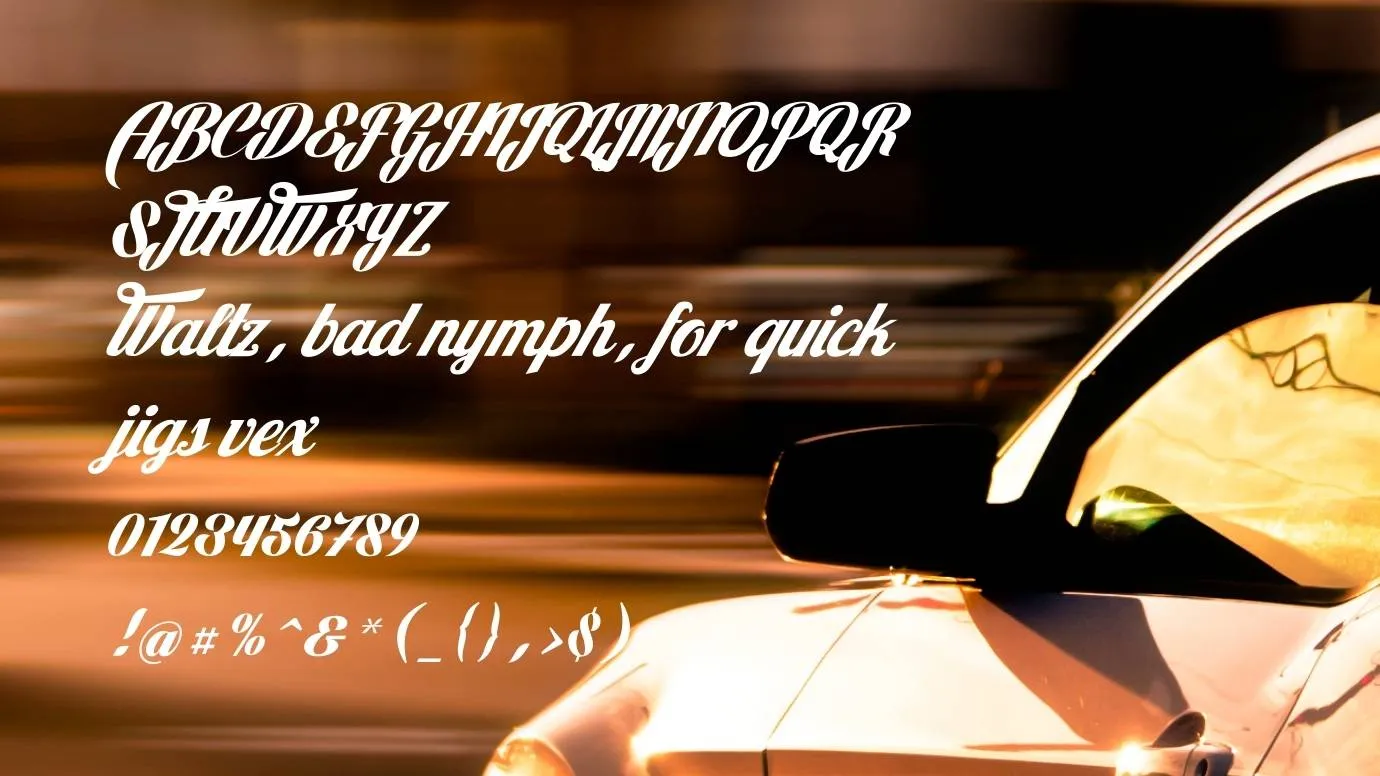
Mustang Font is a bold and rugged brush script typeface. This typeface has a strong appearance and is popular among designers for web and graphic projects. The brush style of Mustang Font is ideal for creating various designs like logos, posters, and documentation. It offers extensive language support and pairs well with Grobold Font.
Creator of Mustang Font
This is a brush script that was designed and released by Robert Arnow.
This font family in single-weight style such as
- Mustang Regular
This font family also comes with a set of different interesting characters and many unique glyphs such as uppercase, lowercase, symbols, and many other special characters as well.
View of Mustang Font
| Name | Mustang Font |
| Style | Script |
| Designer | Robert Arnow |
What Type of Font Is Mustang?
This is a brush script typeface that was designed and released by Robert Arnow.